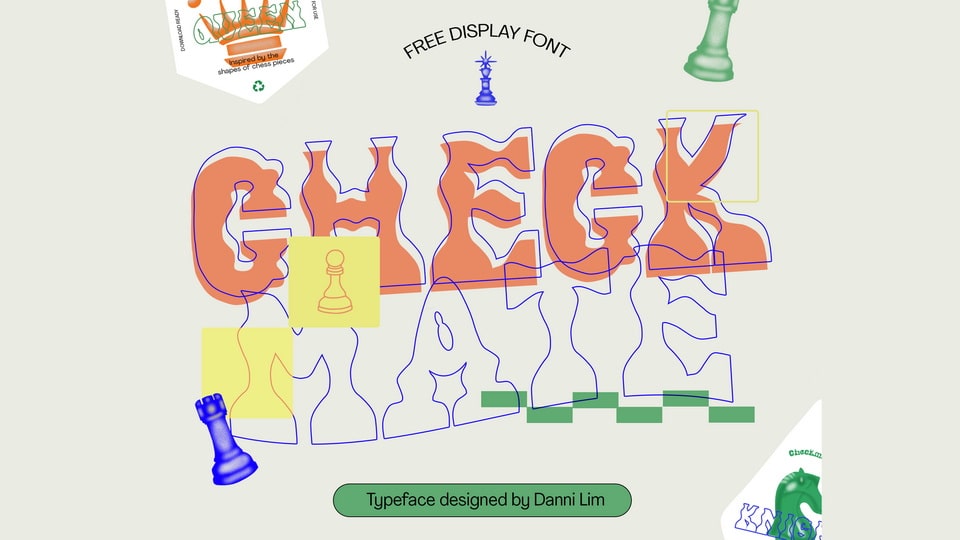
Download Checkmate font, a display typeface inspired by chess pieces and bowling pins. Checkmate font is sure to spice up any project with its funk.
Designer: Danni Lim